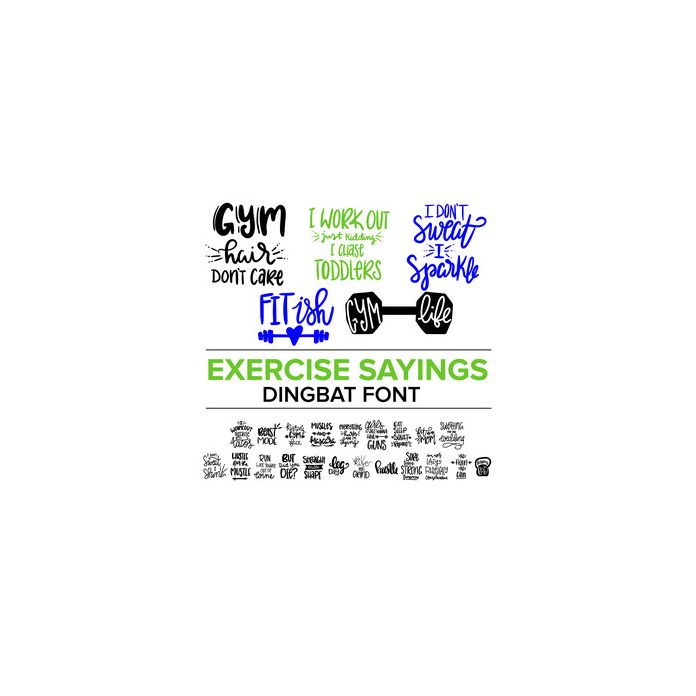
exercise sayings dingbat font
This dingbat font comes in OTF format. Each uppercase and lowercase letter corresponds to a unique exercise phrase. There are 26 dingbats total.